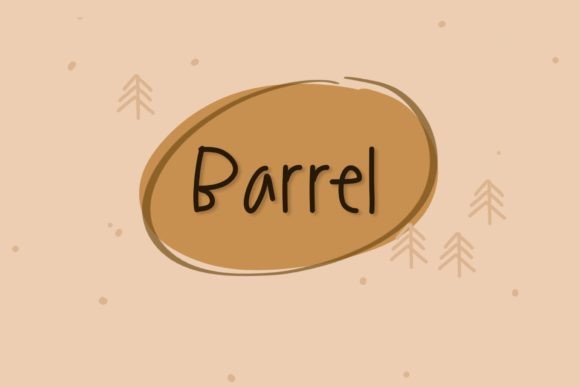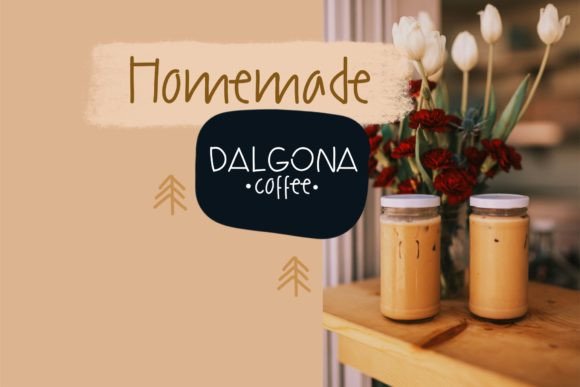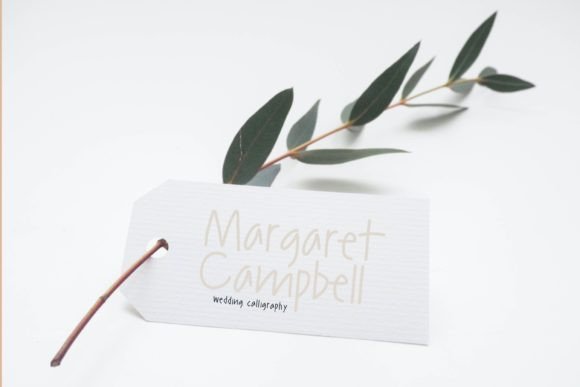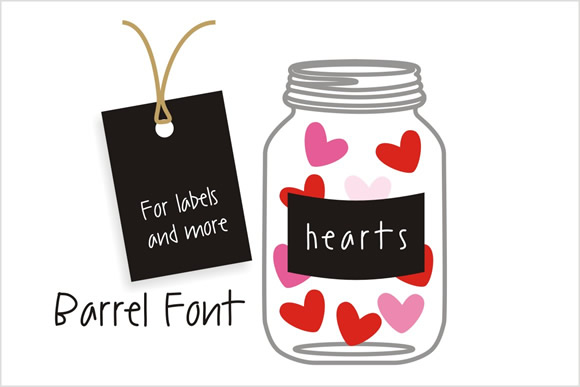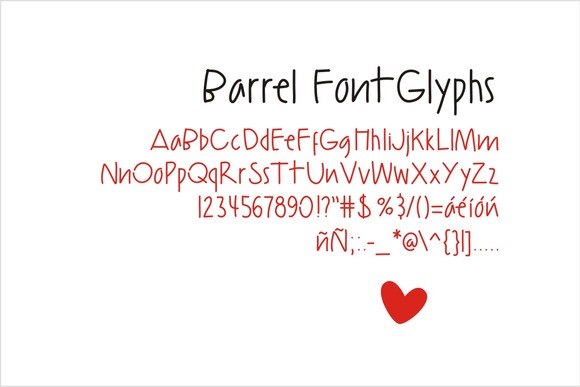
HomeScript FontsBarrel Font Script Fonts Barrel Font FacebookXPinterestWhatsApp Barrel Font Poster 2 Barrel Font Poster 3 Barrel Font Poster 4 Barrel Font Poster 5 About Barrel Font Barrel is a beautiful font that has a chalk written look. DOWNLOAD ON CREATIVE FABRICAThis font is sold and delivered by Creative Fabrica. Font Canyon may earn a commission if you buy through this link. People also explored King David’s Font Watten Font Madagascar Victory Willkins Font Introvert Font Better Together Font Sweet Pineapple Font Saint Germain Font Daughter Font 558 0 TagsBarrel Font Previous articleBonita FontNext articleAfinity Font LEAVE A REPLY Cancel reply Comment: Please enter your comment! Name:* Please enter your name here Email:* You have entered an incorrect email address! Please enter your email address here Website: Save my name, email, and website in this browser for the next time I comment. Personal Use Free Lemon Milk Font Personal Use Free Read more about this font Kaysan Personal Use Free Read more about this font Mallvirra Personal Use Free Read more about this font Vanity Personal Use Free Read more about this font BLOG 5 Fonts That Will Dominate Design Trends in 2026 5 Fonts for 2026 That Will Dominate Design Trends Typography plays a critical role in visual communication, and as we look ahead to 2026, it’s... Fonts That Capture the Spirit of New York City Top 7 Google Fonts Alternatives for Faster and Privacy-Friendly Web Design (2025) Free Fonts Risk: Why Free Fonts Can Be Dangerous for Designers